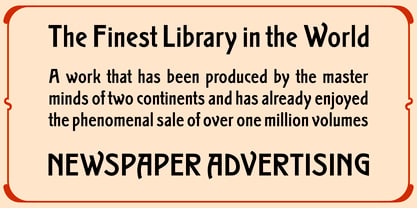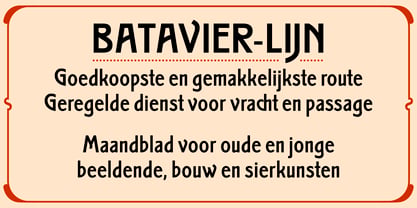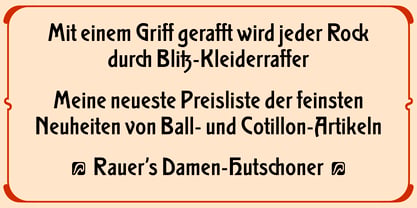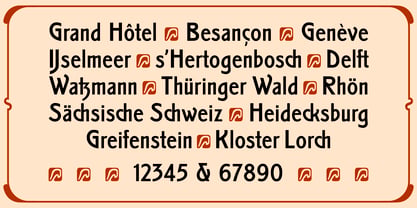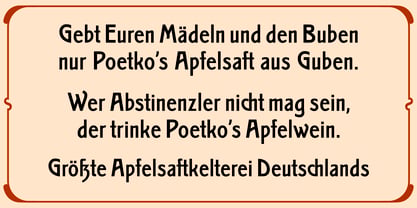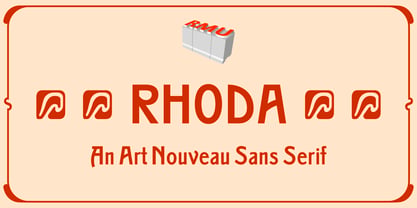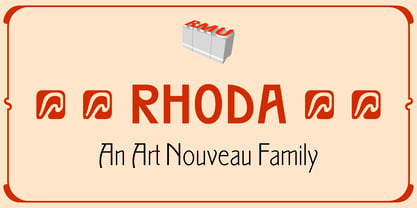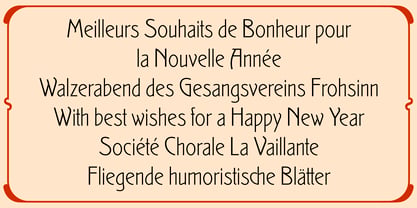
Rhoda™
by RMU
The Rhoda Font Family was designed by Ralph M. Unger and published by RMU. Rhoda contains 2 styles and family package options. More about this family
Inspired by the fin-de-siècle font Secession, Rhoda was completely redrawn and redesigned for modern use. This font contains several discretionary ligatures, the letters H and e have alternatives. That's why it is recommended to activate the OT feature discretionary ligatures. Since this is a clear, well-legible font it can enhance your Art Nouveau-style projects a lot.